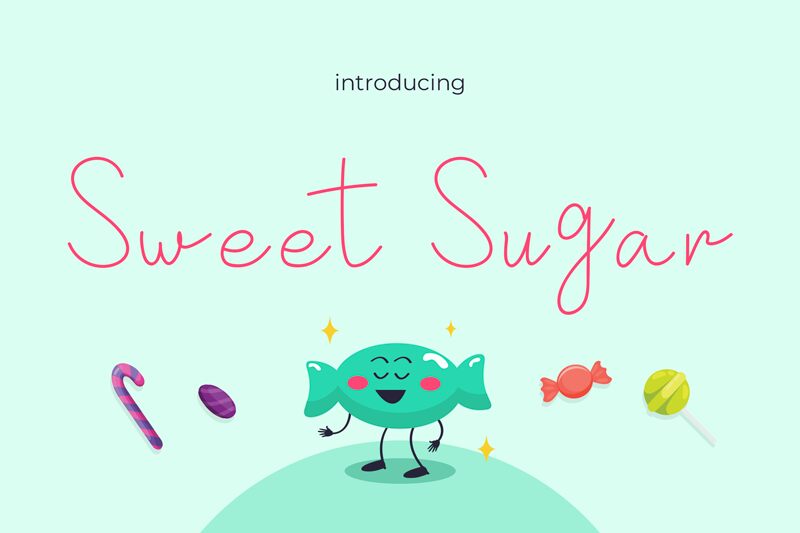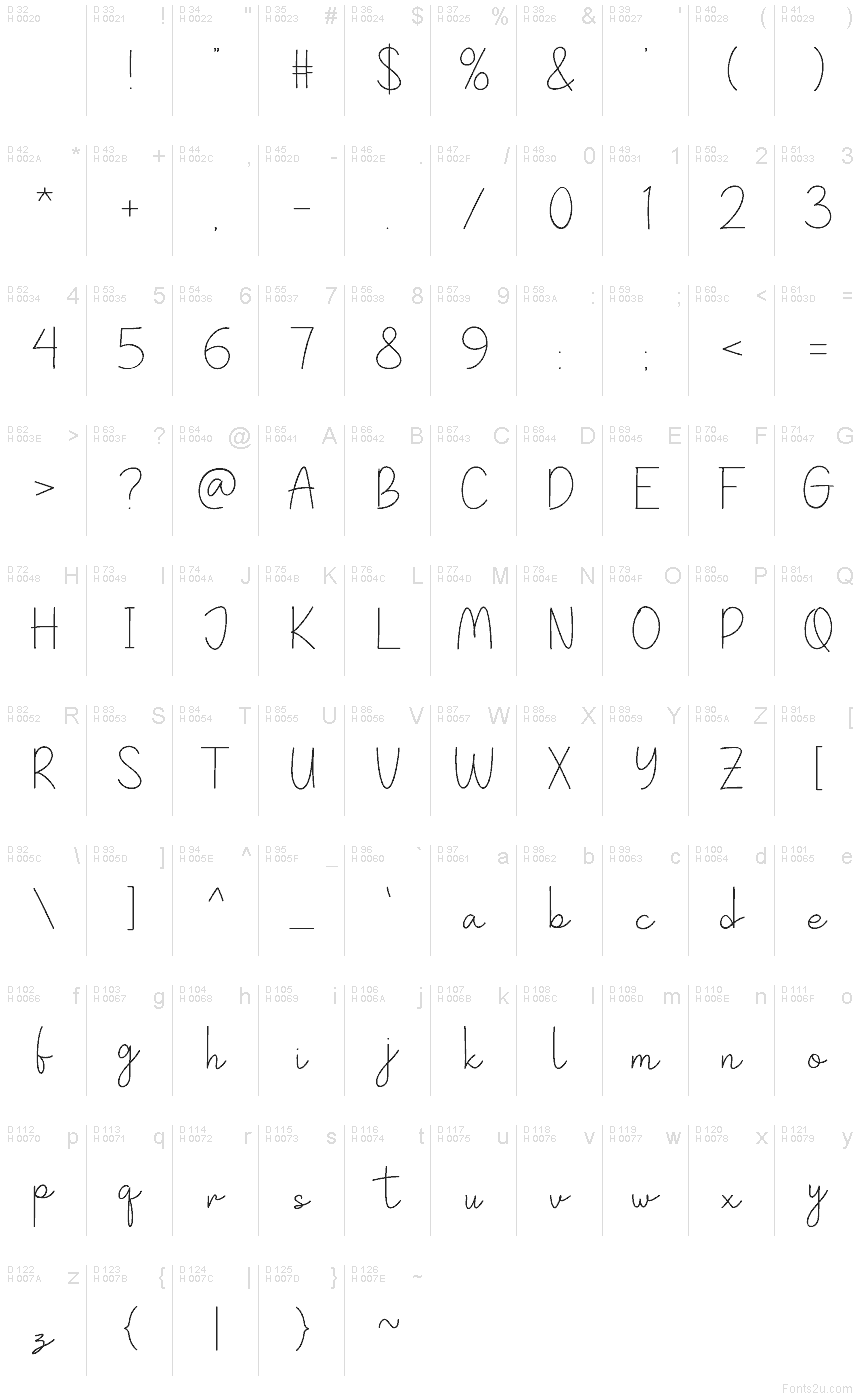
Sweet-Sugar
Sweet Sugar font by Pinisiart is a free handwritten script typeface with an easy, breezy charm. Its thin, slightly loopy strokes feel like a quick note from a friend—casual, a bit imperfect, and quietly elegant. The letters connect with a light touch, giving words a soft, airy rhythm that works beautifully when you want warmth and personality without heavy flourishes.
Using Sweet Sugar, you can bring a cozy, handwritten feel to Instagram quotes, wedding stationery, logo submarks, product labels, thank-you cards, and blog graphics. This free font shines at medium to large sizes where its gentle curves and natural texture stay crisp. Pair Sweet Sugar with a clean sans serif for body text to keep layouts readable while letting the script handle all the sweetness and emphasis.